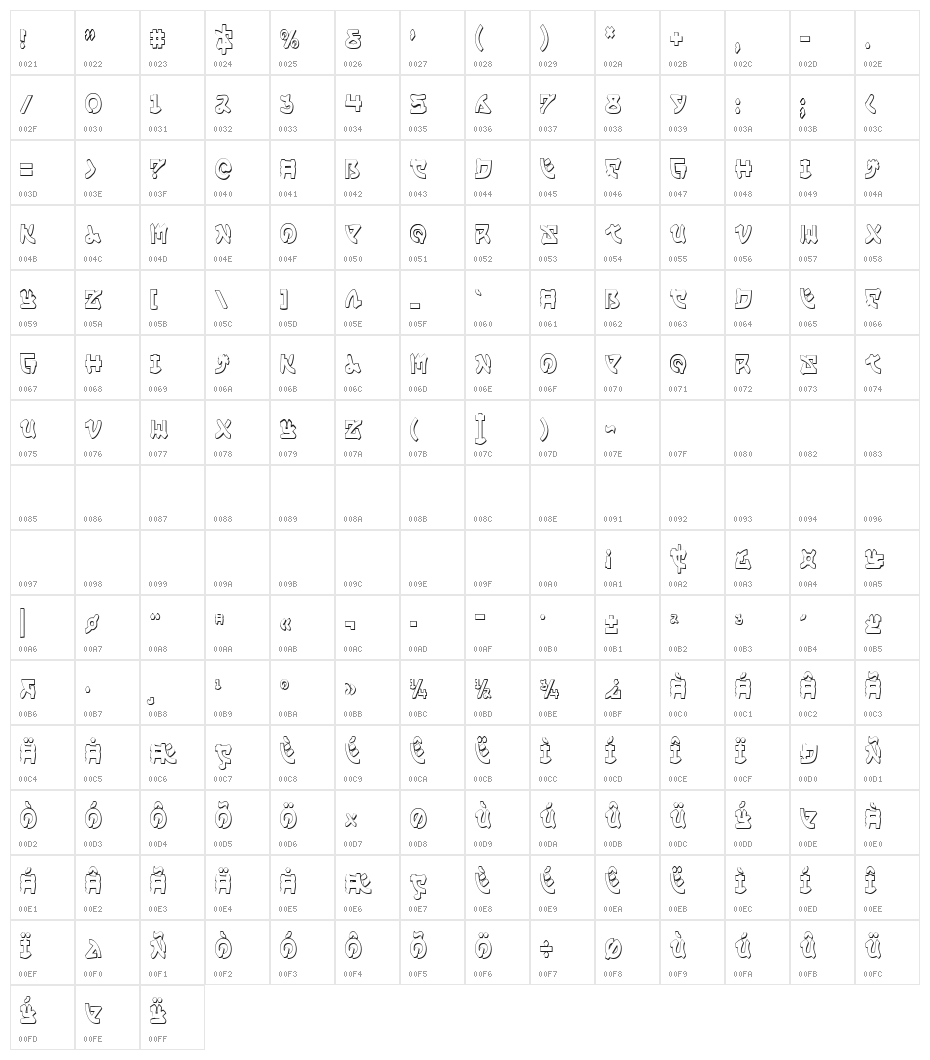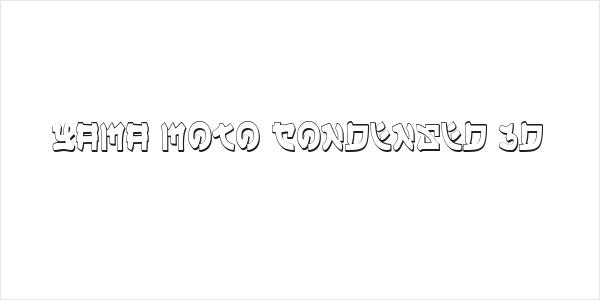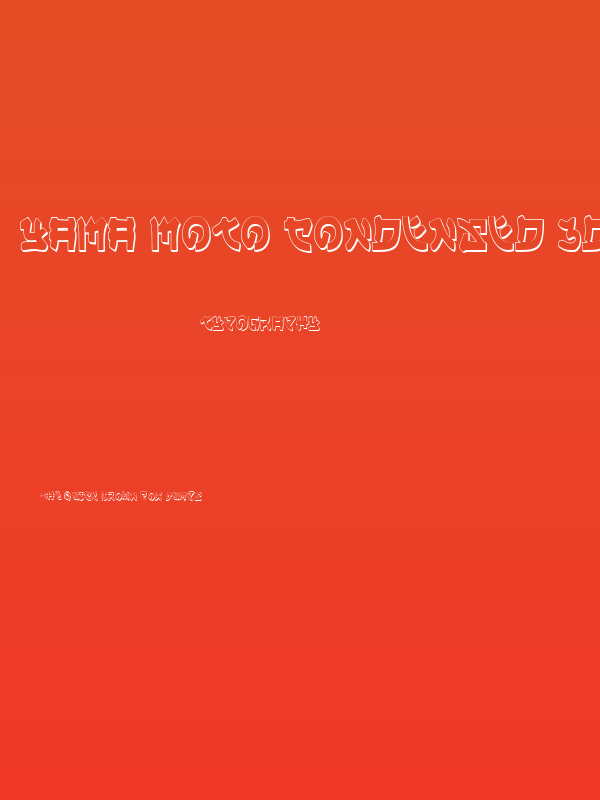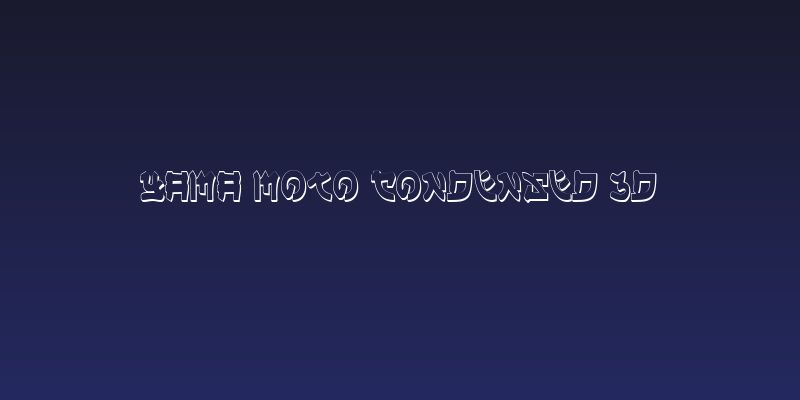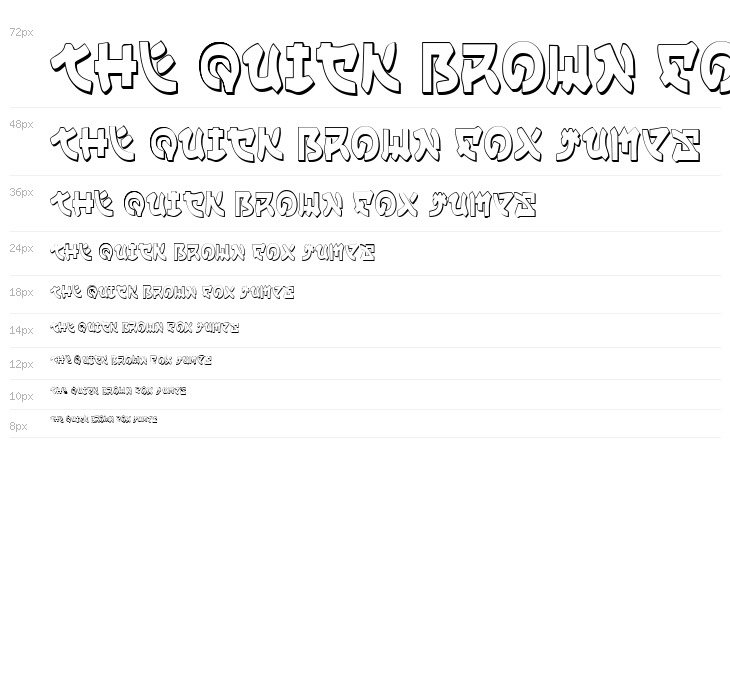
Yama Moto Condensed 3D Font
Yama Moto Condensed 3D Description
This font features a bold, three-dimensional style with a condensed structure. The characters are outlined, giving them a striking, shadowed appearance that enhances their visual impact. The geometric shapes and sharp angles contribute to a futuristic and edgy aesthetic. Each letter is distinct, with unique cuts and curves that add to the overall dynamic look. The numbers and special characters maintain the same bold and angular design, ensuring consistency across all elements. This font is ideal for projects that require a modern and eye-catching typeface.